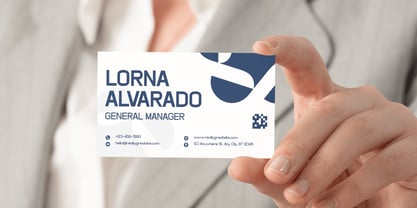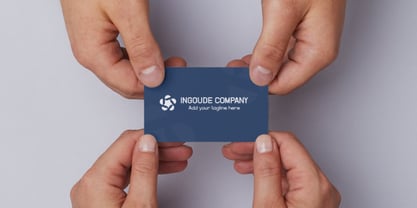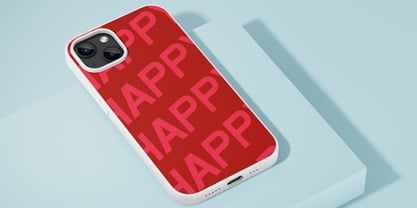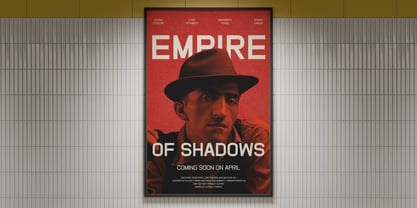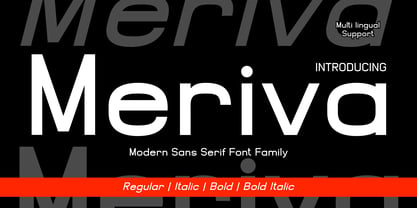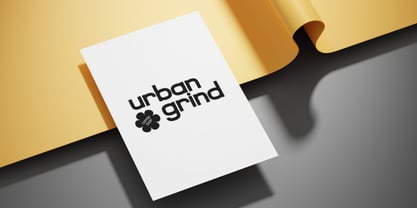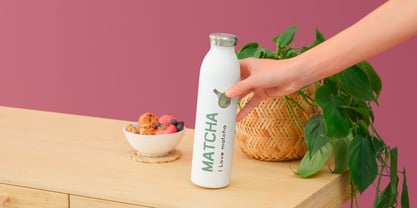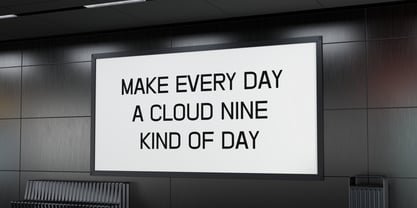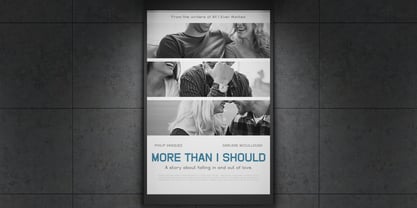
The Meriva Font Family was designed by Nattha​ Potchanad​ and published by Brown Cupple Typeface. Meriva contains 4 styles and family package options. More about this family
Experience the clear and confident impact of Meriva, a contemporary sans serif font meticulously crafted for compelling branding. This powerfully versatile typeface, with its Regular version providing solid structure and Italic offering deliberate emphasis, is tailor-made for striking visibility. A perfect fit for a variety of mediums, be it logos, headlines or posters, Meriva thrives in the digital content arena too. It boasts of standard ligatures and expertly calibrated spacing, ensuring fluid readability and luxurious letter form architecture. Choose Meriva and inject your design work with utmost sophistication and style.
Designers: Nattha​ Potchanad​
Foundry: Brown Cupple Typeface
Meriva